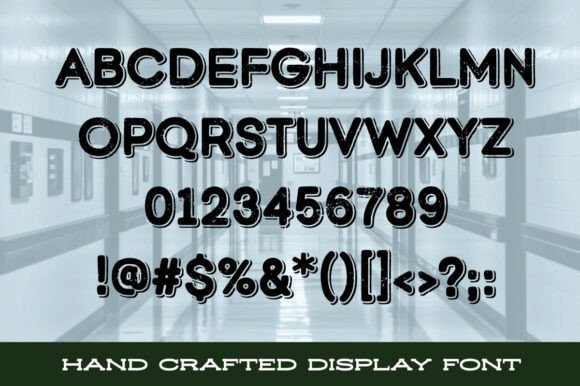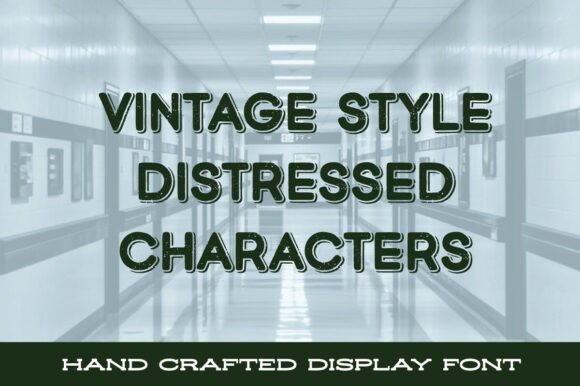
Introduction to Rosemount Font
Rosemount is a bold, distressed hand-crafted sans-serif font with a distinctive shadow that adds depth and character.
Its weathered appearance gives off a vintage, well-worn vibe, making it perfect for rustic logos, signage, packaging, and anything that needs a touch of handcrafted charm Whether youโre aiming for an old-school aesthetic or simply want to add texture and personality to your designs, Rosemount delivers with style.